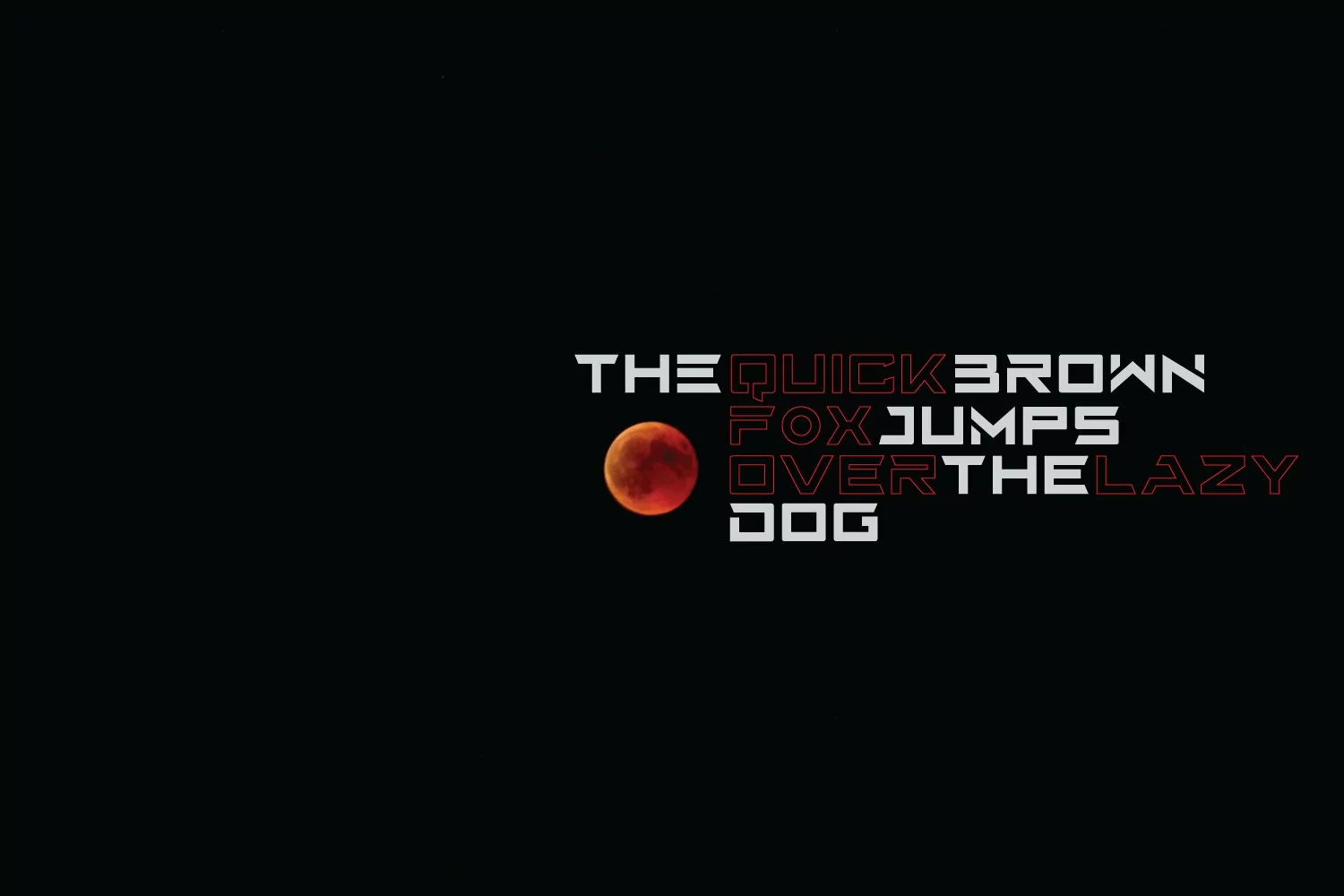
Qore font is a sans-serif typeface with minimal, modern,and futuristic style.
This typeface is available in all caps only with stylistic alternates feature plus supports multilingual languages.
This font is appropriate for your branding, logo design, shirts, etc.